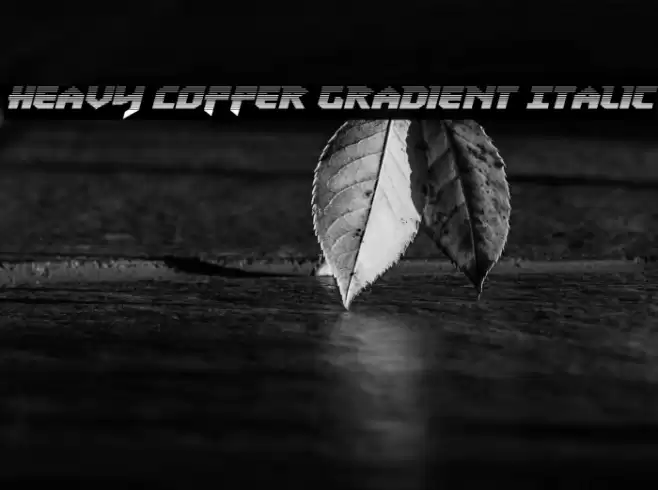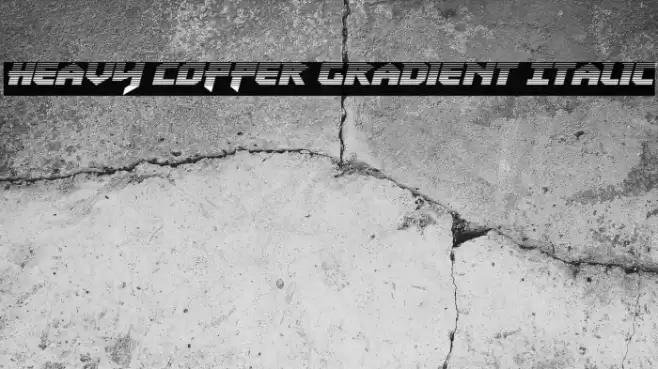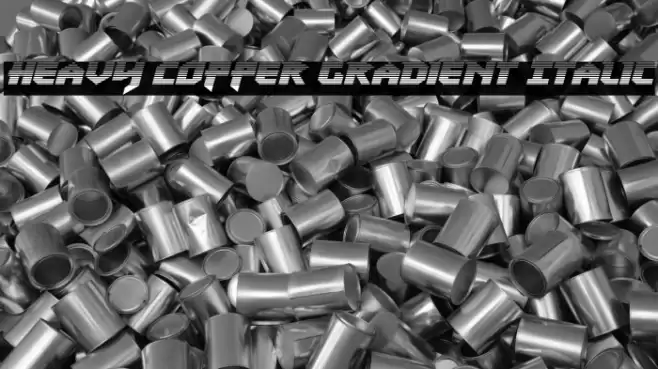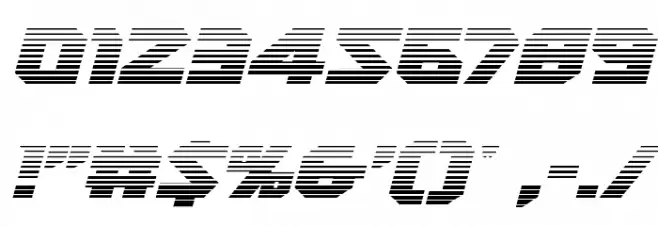
Heavy Copper Gradient Italic Font
Heavy Copper Gradient Italic Description
This font features a bold, futuristic design with a distinct striped pattern across each character, giving it a dynamic and energetic appearance. The italicized slant adds a sense of motion, making it ideal for projects that require a modern and edgy look. The characters are uniformly wide, with sharp angles and clean lines that enhance its contemporary style. The uppercase and lowercase letters maintain consistency in design, while the numbers and special characters complement the overall aesthetic. This font is perfect for eye-catching headlines, logos, and branding materials that aim to stand out.
A bold, striped, italic font with a futuristic and dynamic style from Uncategorized fonts.
- Proposed Projects: Ideal for futuristic branding, tech-related logos, and dynamic headlines.